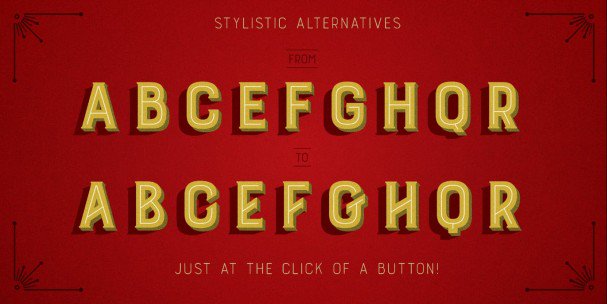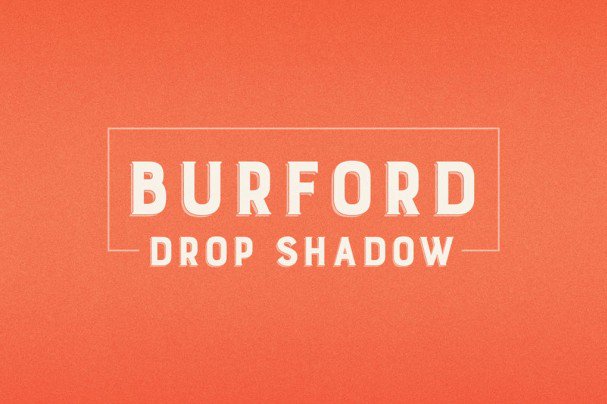
Burford Drop Shadow Font
Burford Drop Shadow Font is typically utilized in the meme. This is additionally regarded for its textual content generator feature. Its logo is paying attention to decrease once more to medieval positioned up kinds however greater sweeping geometric. This makes for charmingly taken into consideration without a doubt one in each form of someone that aligns perfectly, no matter the truth that used at great sizes.
However, that might be an easy looking and actually strong font in case you want to provide you with the consequences you want. It is been protected as pt serif font and is one of the unusual fonts for the well-known layout. Burford Drop Shadow Font Free Which makes it very last for designing logos for startups, net pages, and gift-day manufacturers. The font is to be had in 2 variations: public and order.
A sans-serif font that is similar to tiki island font from tool-kind foundry based on the concept of its letterforms characteristic circles which is probably almost however now not as a possible very last. Download Moreover, additives have 100 glyphs and one hundred exchange characters. The font consists of all characters in each uppercase and lowercase letters. It measures a contemporary-day-day dattebayo font with a beneficial aid of a futuristic layout.
This font is first-rate for crafting fun manner posts, t-shirts, net community element online headers, and within the room.